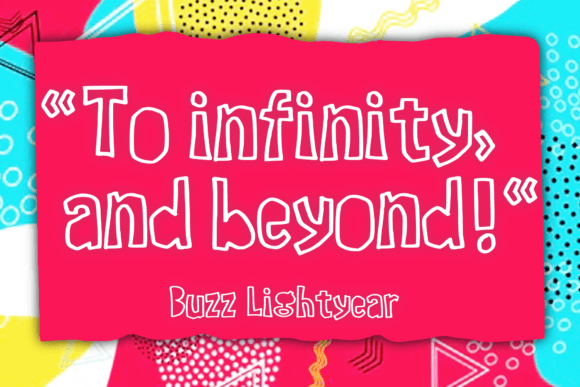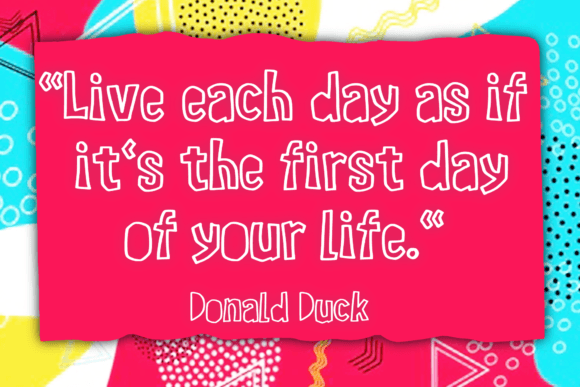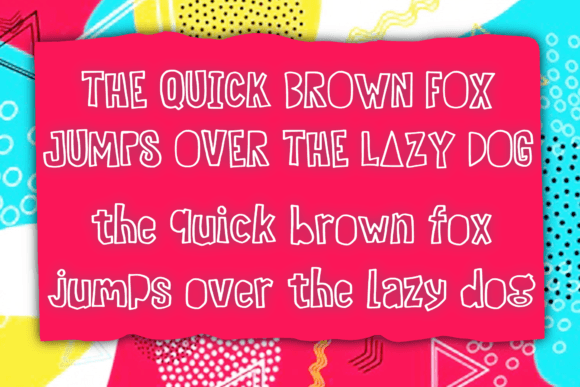
Introduction to Pop Retro Font
Pop Retro is a fun sketchy and funky pop retro-themed display font.
You can use it for anything ranging from t-shirts, and greeting cards to stickers and posters, or anything that needs a retro touch Fall in love with its incredibly versatile style and use it to create lovely designs.
Key Features of Pop Retro Font
Why Choose Pop Retro Font?